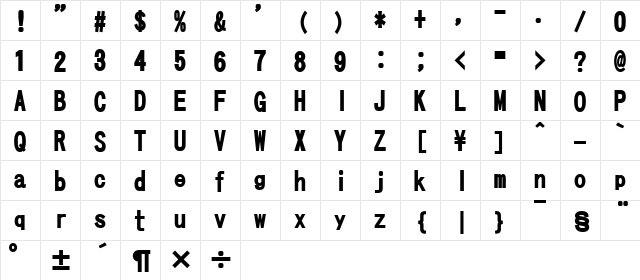
FxSVbNH Regular
Design Context for FxSVbNH
FxSVbNH is a composed and adaptable typeface that performs quietly and consistently across a wide range of design contexts.